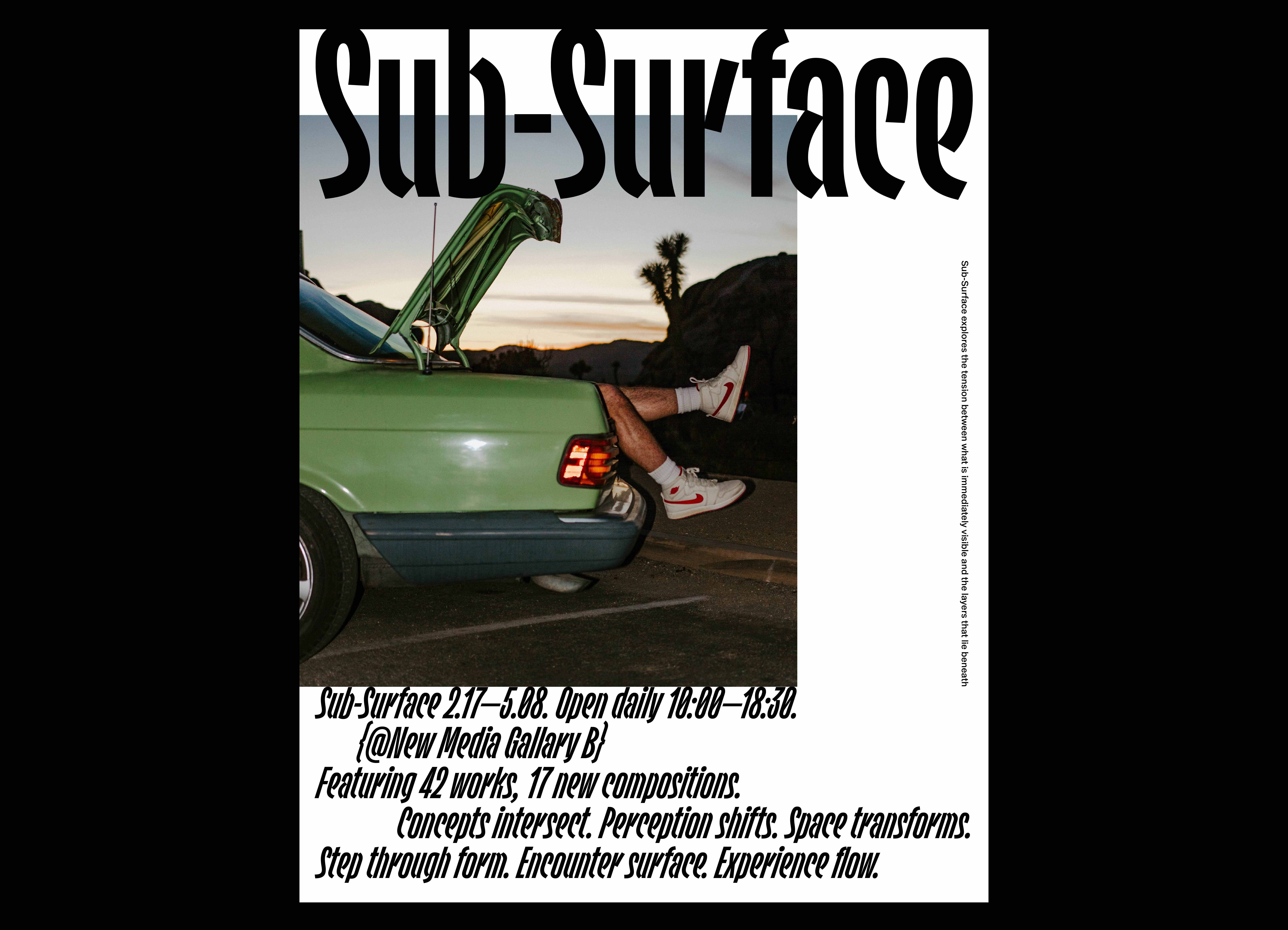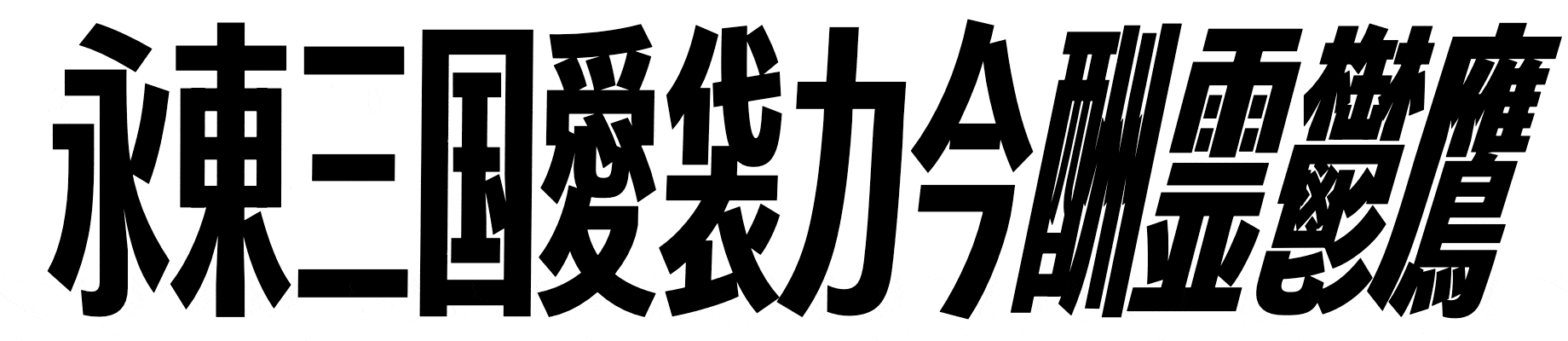
Path Grotesk is a warm, condensed sans-serif that incorporates casual, handwritten cues within a clean, controlled structure. The letterforms draw from the natural motion of a flat marker pen: softly connected strokes and terminals gently angled in the direction of each writing movement. These stroke nuances soften the rigidity typically found in narrow grotesques, giving the typeface a friendly, human quality without compromising legibility or refinement.
Key construction features include lightly connected stroke joins, consistent curve modulation, and directionally cut terminals that introduce marker-like edge behavior without overstating the effect. Quietly expressive and approachable, Path Grotesk brings personality and warmth to space-conscious layouts.
The typeface received an Honorable Mention at the Morisawa Type Design Competition.